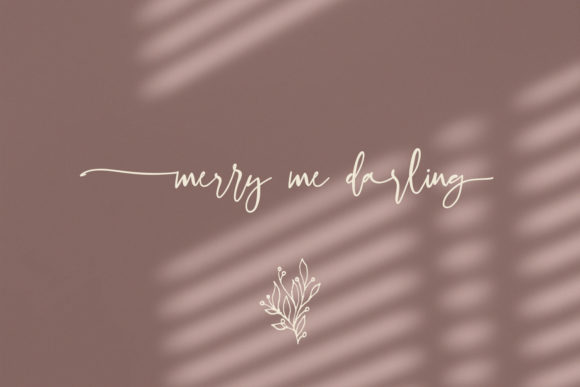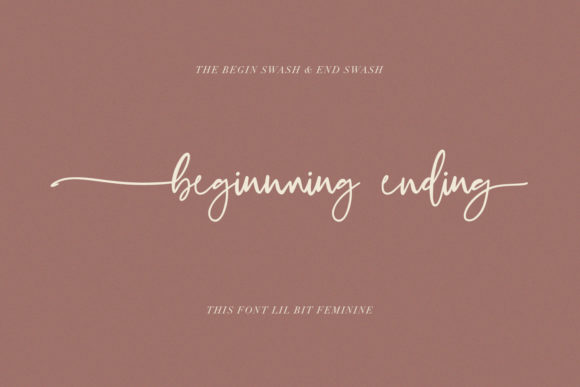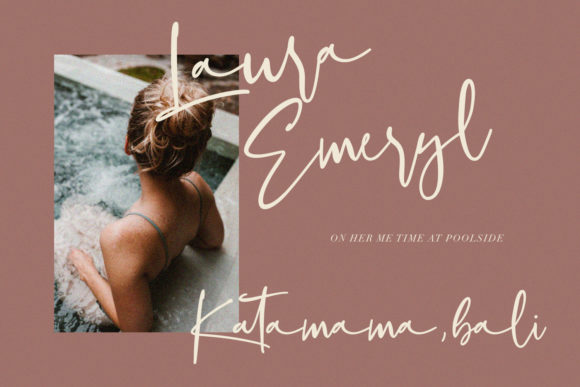
Introduction to Colossalost Font
Colossalost is a lovely handwritten font, featuring a nice flow.
It is defined by smooth curves and is perfect for fashion branding or editorial designs Add it confidently to your projects, and you will love the results.
Key Features of Colossalost Font
Why Choose Colossalost Font?
Colossalost Font offers exceptional quality and versatility, making it a valuable addition to your design toolkit. Whether you’re creating for personal projects or commercial use, Colossalost Font delivers professional results.